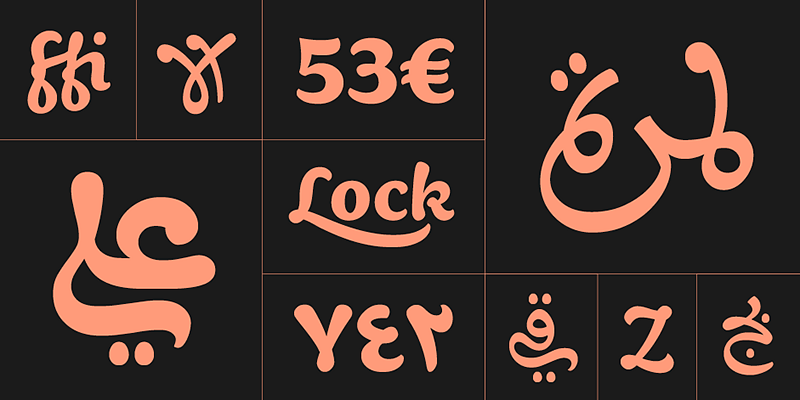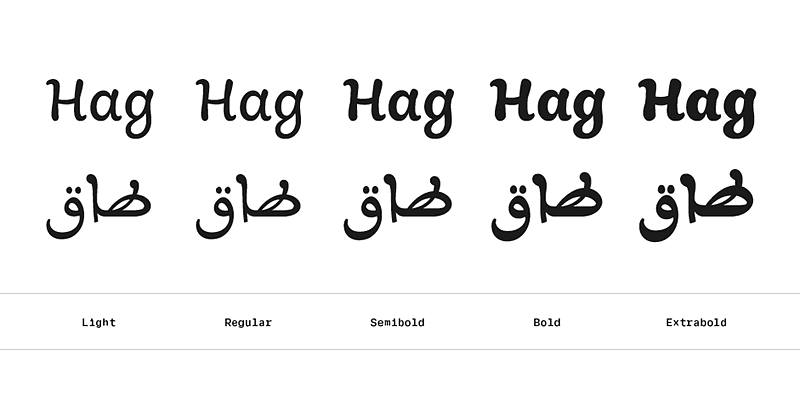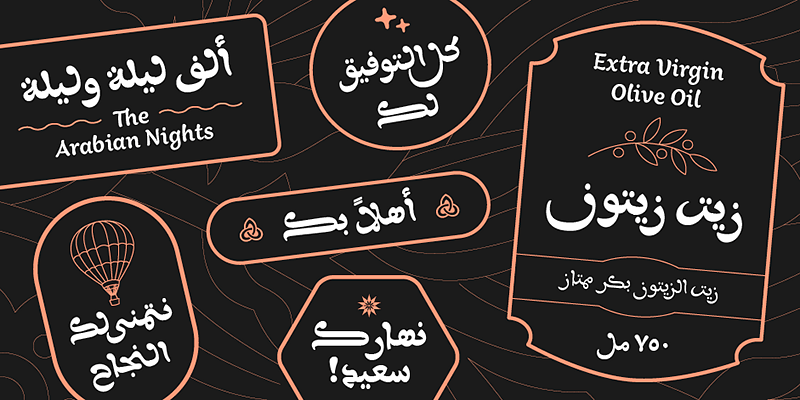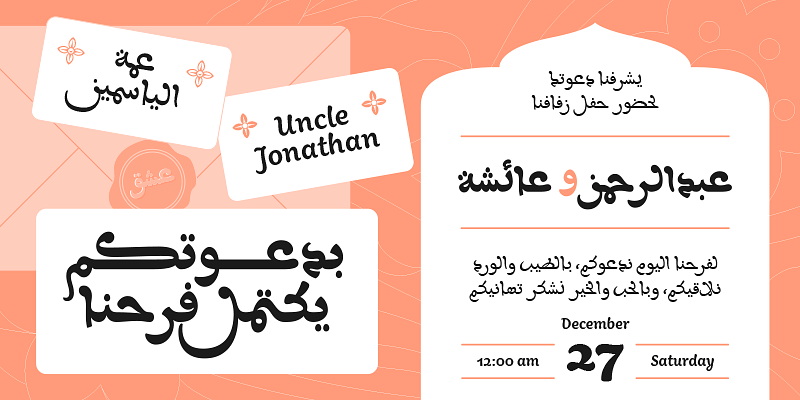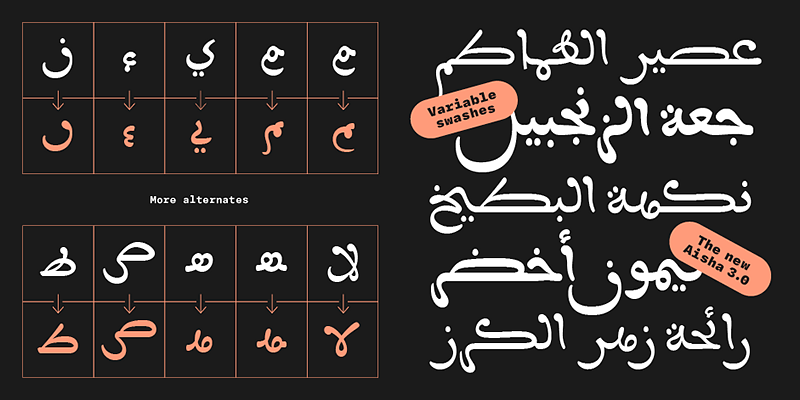
A fun and funky typeface walking line between text and display typography. Its lush and dynamic curves trace their origin to North African calligraphy and type traditions. Aisha provides a fresh and carefree family for typesetting Arabic and Latin.